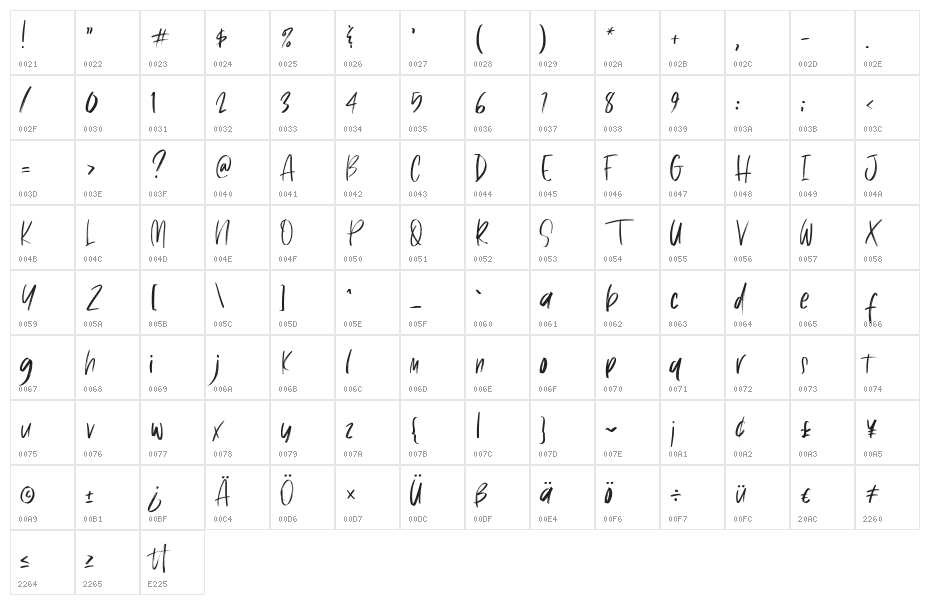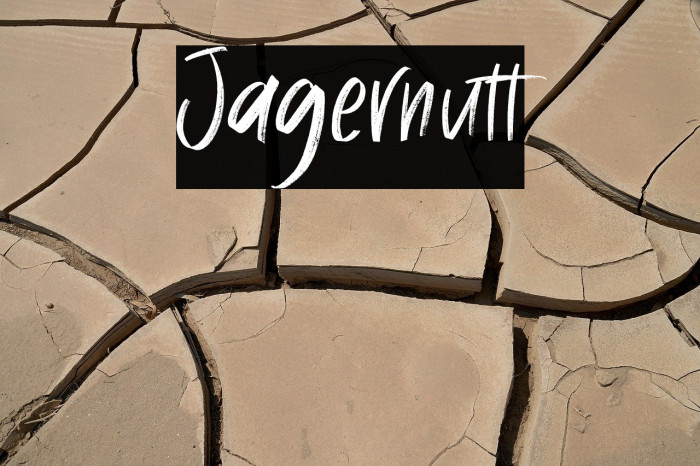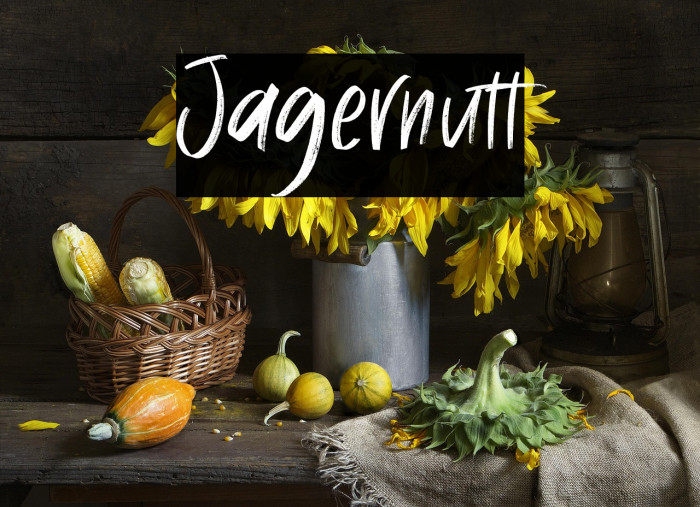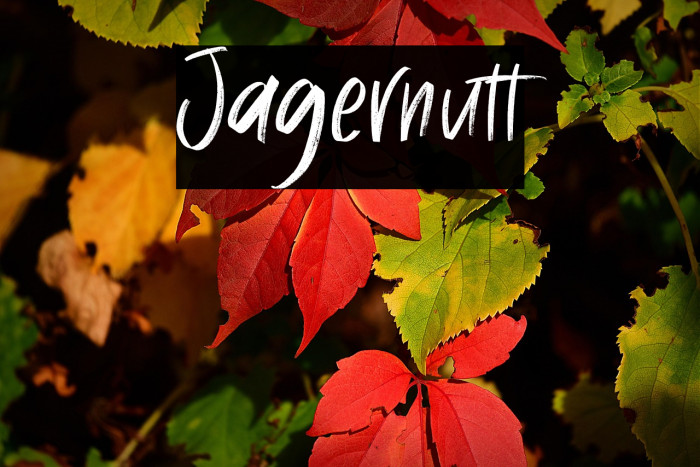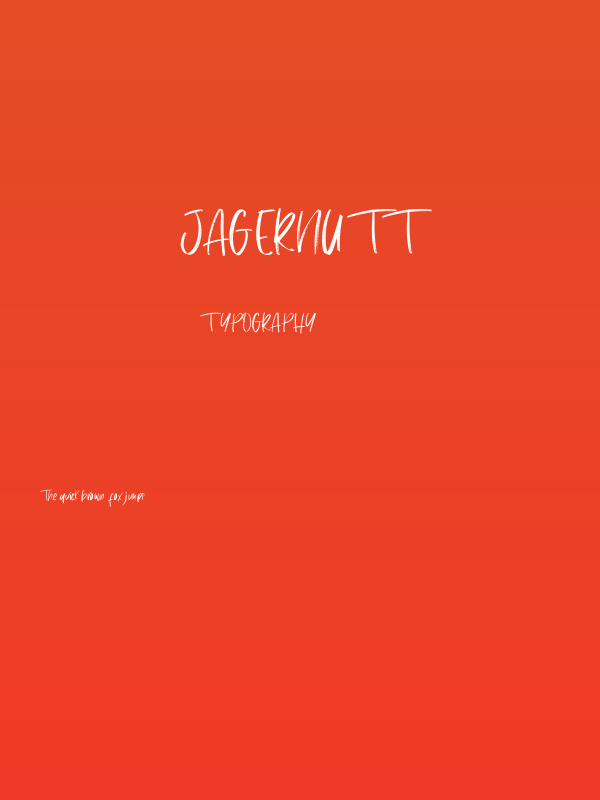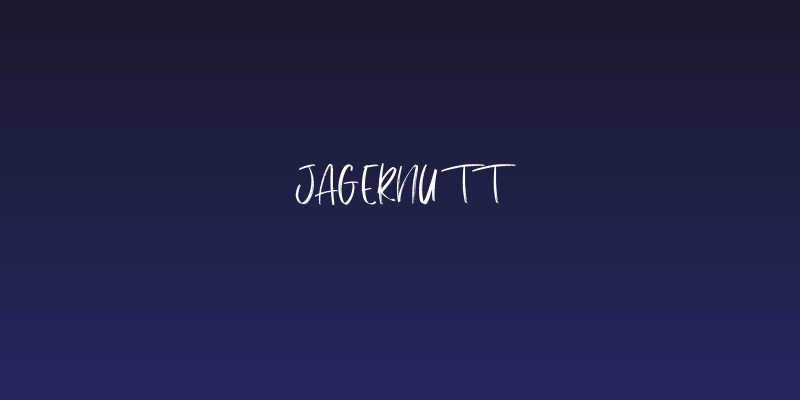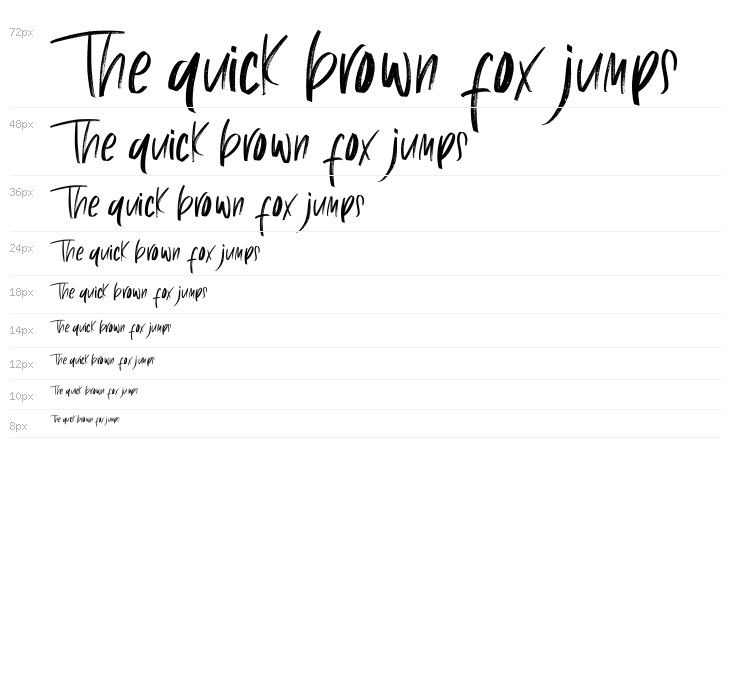
Jagernutt Font
Jagernutt Description
This font features a dynamic and expressive handwritten style, characterized by its bold and energetic strokes. The letters have a casual, yet artistic flair, with varying thickness that adds a sense of movement and personality. The uppercase and lowercase letters maintain a consistent flow, while the numbers and special characters complement the overall aesthetic. This font exudes a sense of creativity and spontaneity, making it ideal for projects that require a personal touch.
| Proposed Projects | Ideal for creative projects such as posters, invitations, branding, and social media graphics. |